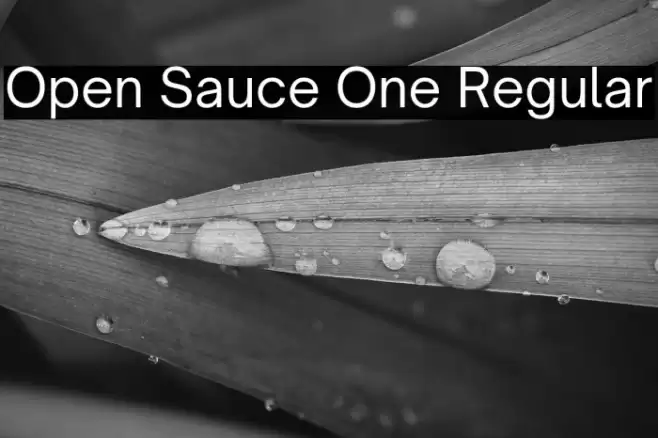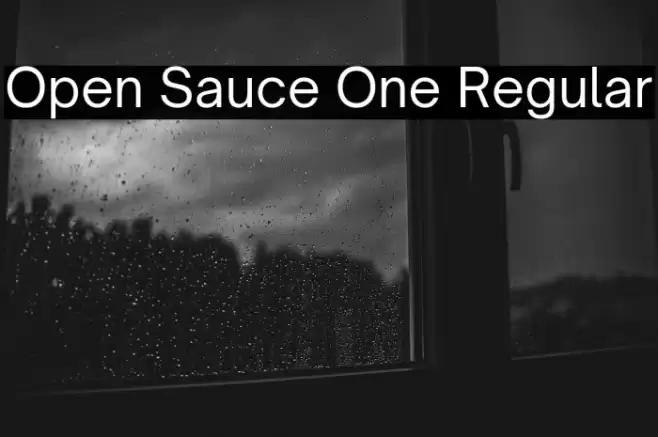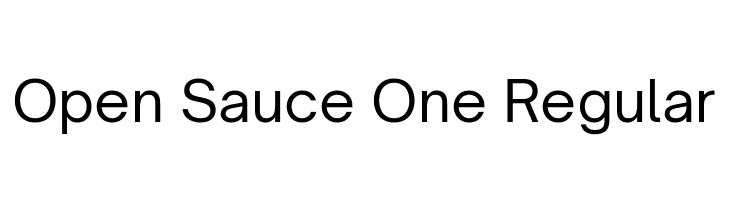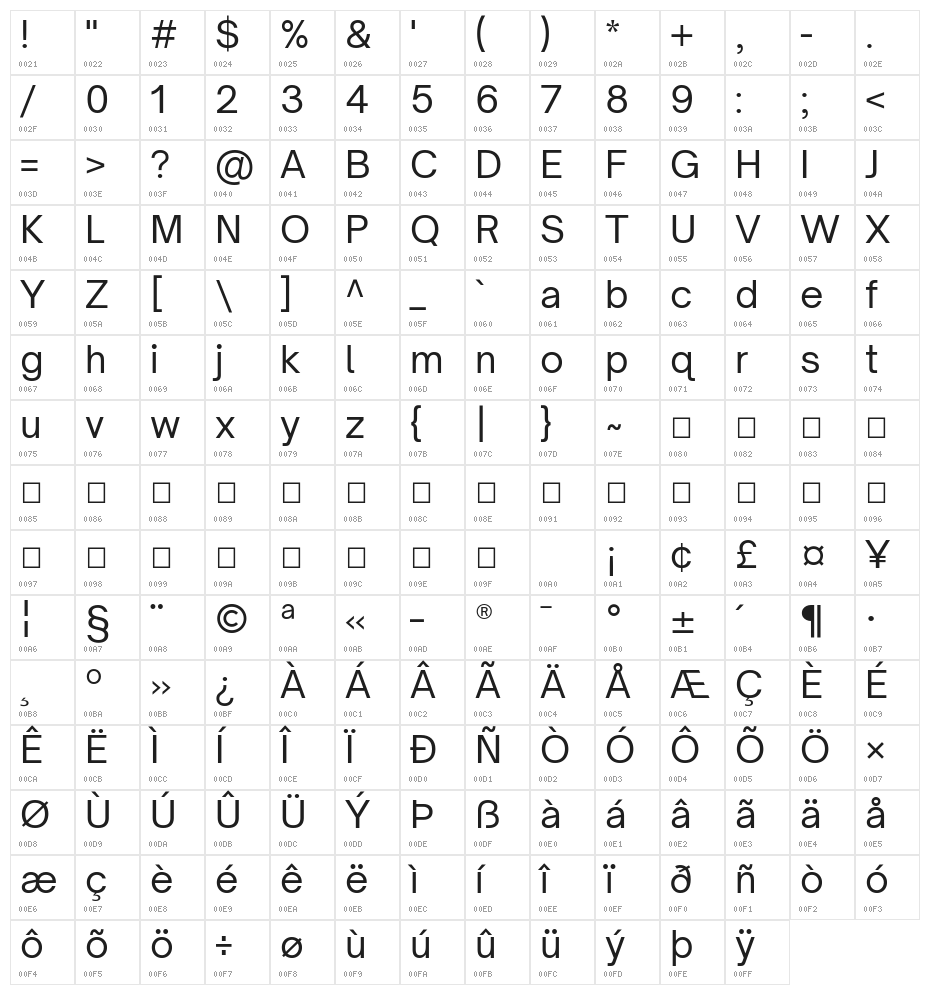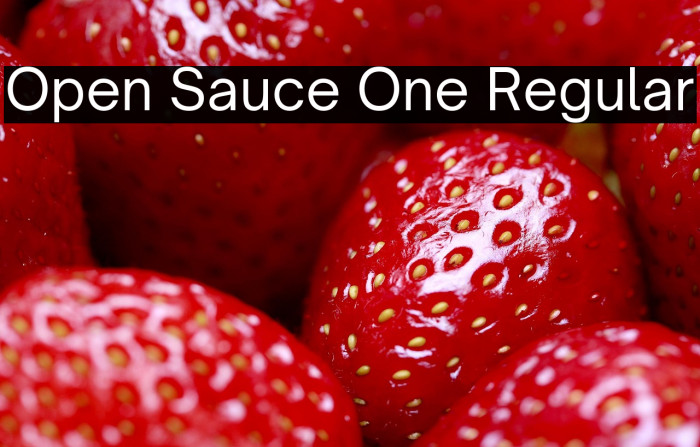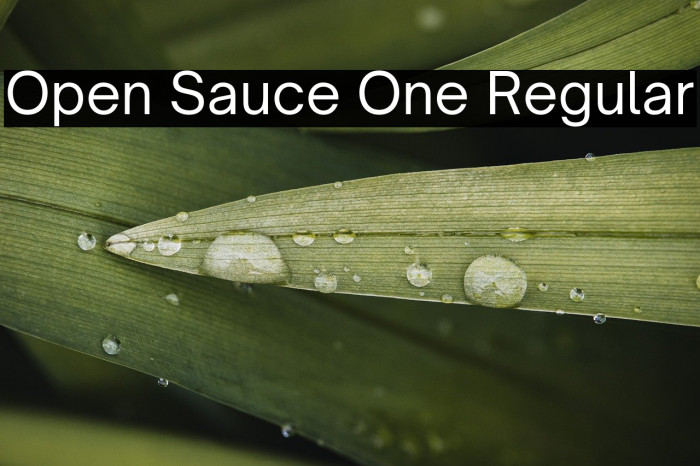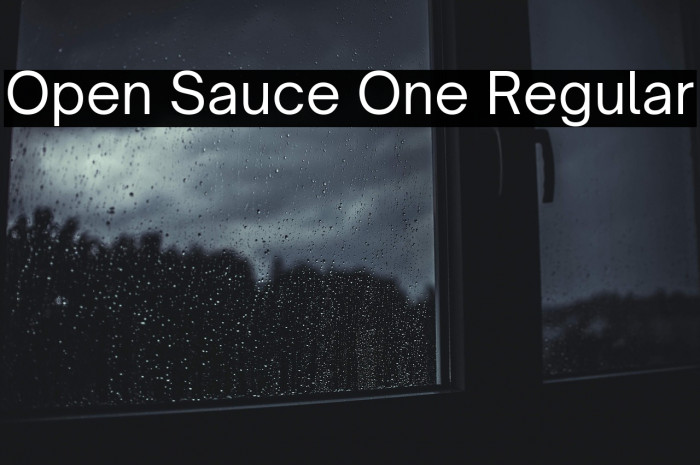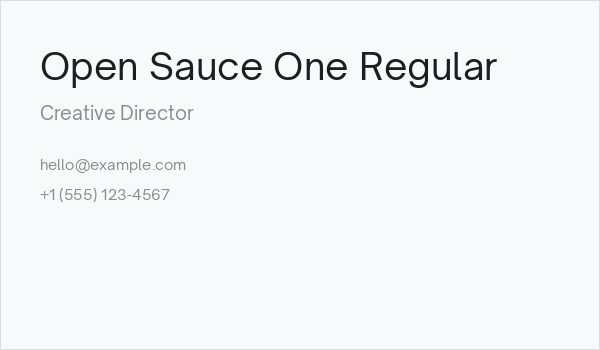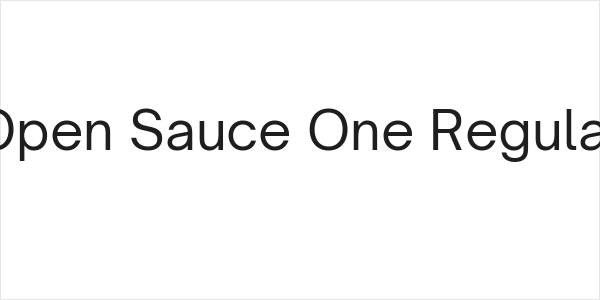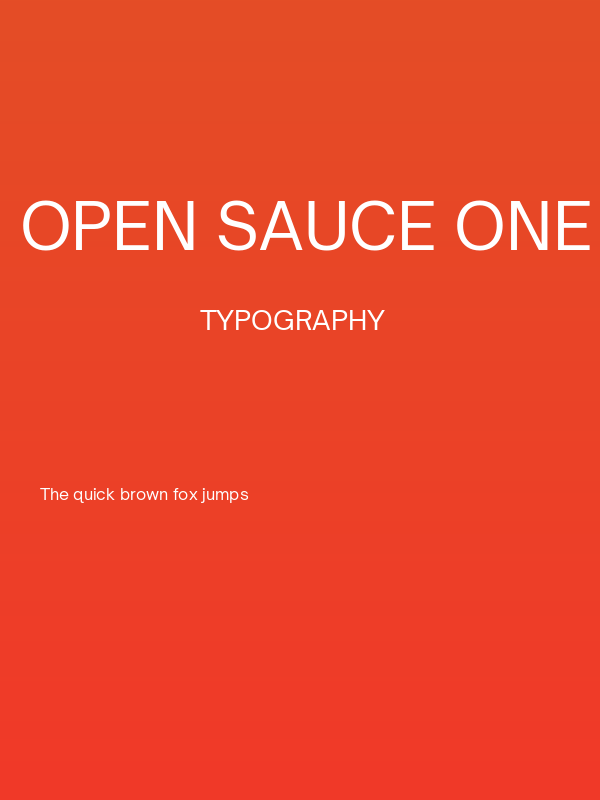
Open Sauce One Regular Font
Open Sauce One Regular Description
This font features a clean and modern sans-serif design, characterized by its geometric shapes and uniform stroke widths. The characters are well-balanced, offering a harmonious appearance that is both professional and approachable. The uppercase letters are bold and assertive, while the lowercase letters maintain a friendly and open feel. The numerals are clear and easy to read, making them suitable for various applications. The special characters are distinct and integrate seamlessly with the overall style, ensuring versatility in design projects.
A modern, geometric sans-serif font with clean lines and balanced proportions from Sans Serif fonts.
- Proposed Projects: Ideal for branding, web design, user interfaces, and print media where clarity and modernity are essential.